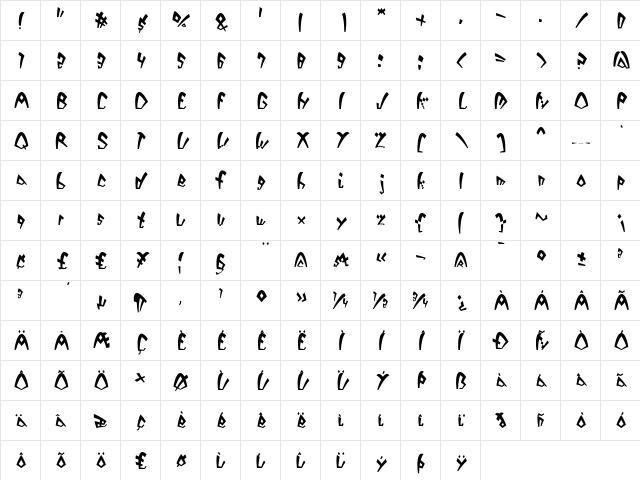
Dack Regular
Design Context for Dack
Dack is a composed and adaptable typeface that performs quietly and consistently across a wide range of design contexts.